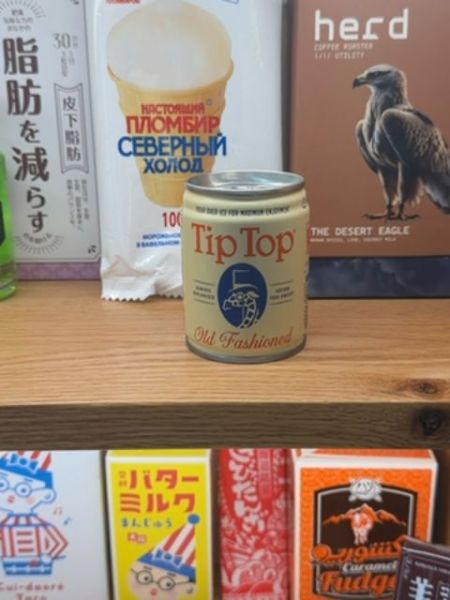
Tip Top Old Fashioned
A pre-mixed cocktail, designed for convenient consumption of a classic Old Fashioned drink.
Country of Origin
USA
Typography
The typography on the can features nostalgic serif fonts that evoke a sense of tradition and quality. The main product name 'Tip Top' is displayed in a prominent, bold style, complemented by elegant script for 'Old Fashioned,' emphasizing its classic nature.
Packaging
The packaging is a small, compact can with a vintage design. It uses a beige background color, which adds to the retro feel, and features a classic illustration, giving it an old-school charm.
- Tip Top is known for its high-quality, ready-to-drink cocktails.
- The company focuses on classic cocktails in convenient packaging.
- The Old Fashioned is one of their flagship products.